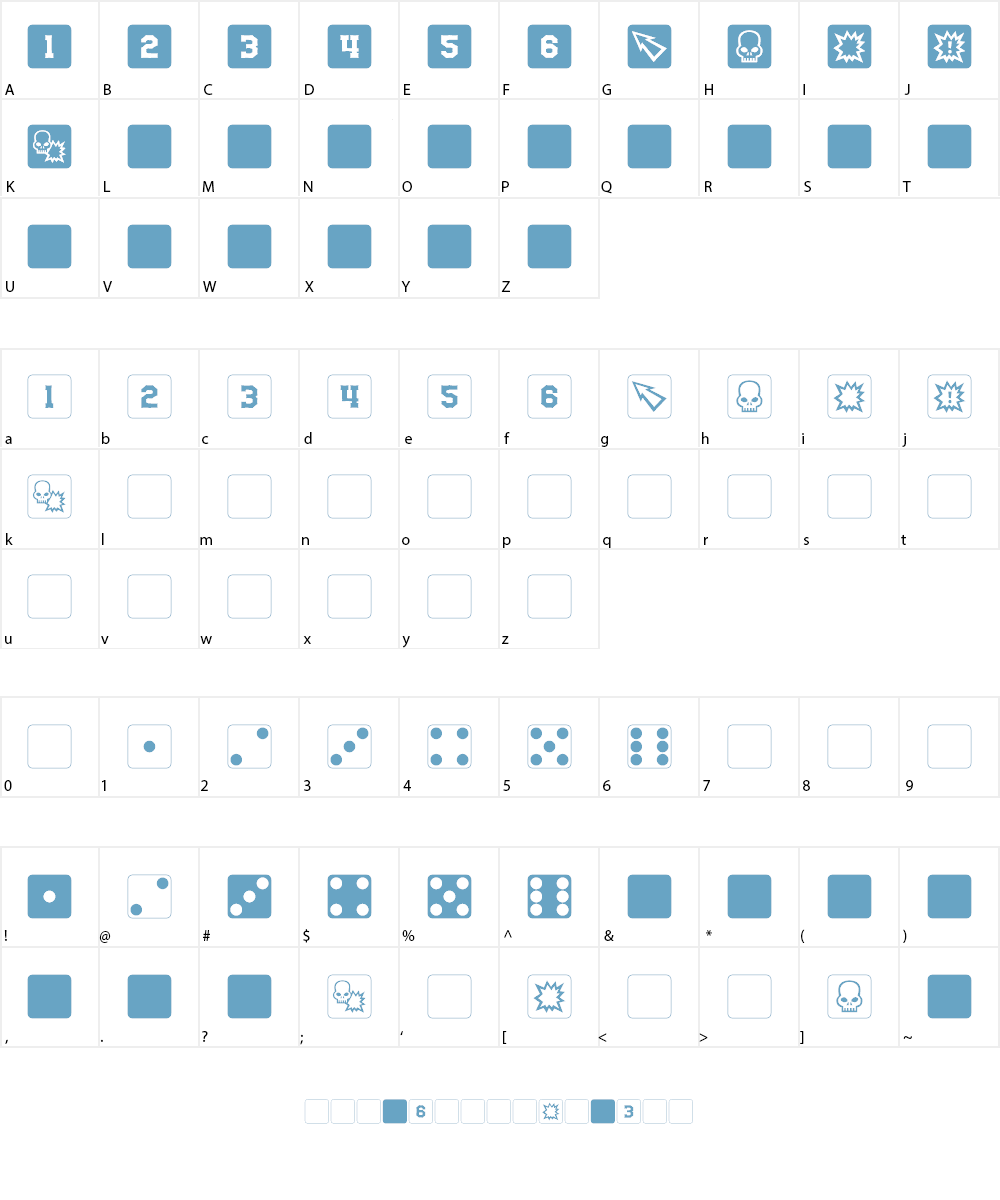
This download includes the dPoly Block Dice font, a new version of the popular dPoly Hexagon font which is designed specifically for fans of bloody fantasy football and similar games. The font includes pip-style and Gutcruncher-style six-sided die in white and black. It also includes fumble, block, both bock, and critical symbols in white or black.